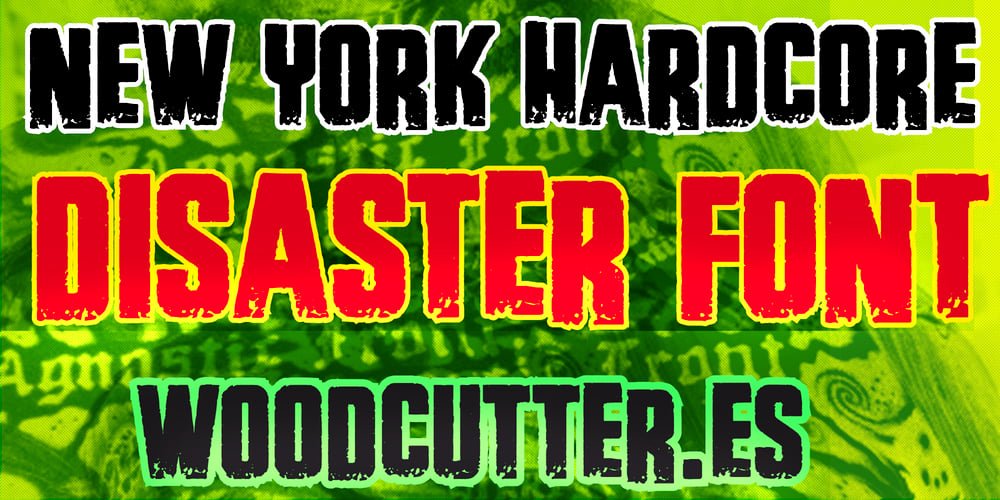
New York Hardcore Font Family was designed by Jordi Manero and published by Woodcutter. New York Hardcore contains 1 styles and family package options. “New York Hardcore” is a font that embodies the intensity and energy of New York’s hardcore scene. With worn letters and disordered positions, this typeface creates a resounding but controlled chaos, delivering undeniable visual impact. Ideal for projects aiming to convey strength and rebellion, “New York Hardcore” stands out on posters, album covers, and t-shirt designs. Its rough and sturdy appearance adds an authentic, streetwise touch, capturing the spirit of New York’s punk and hardcore scene.